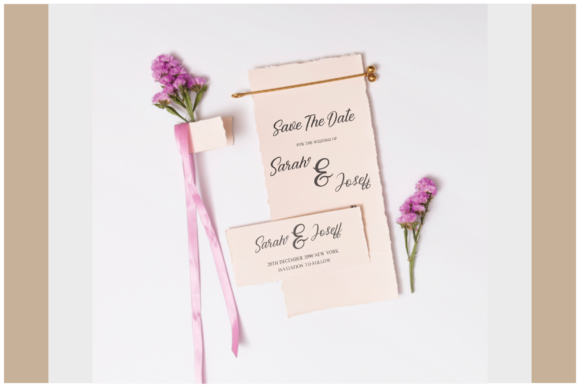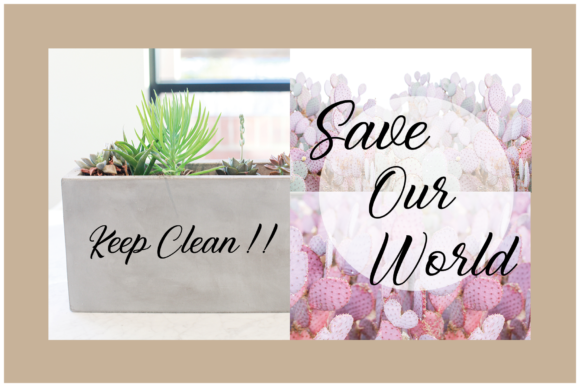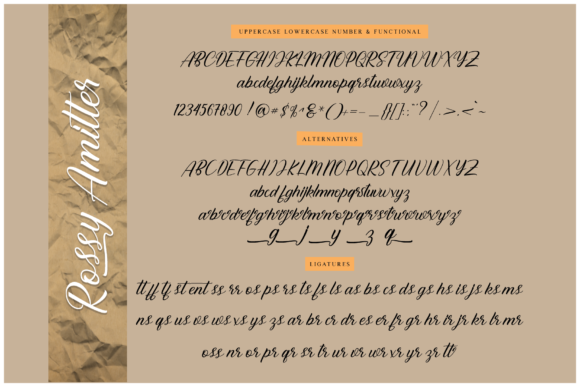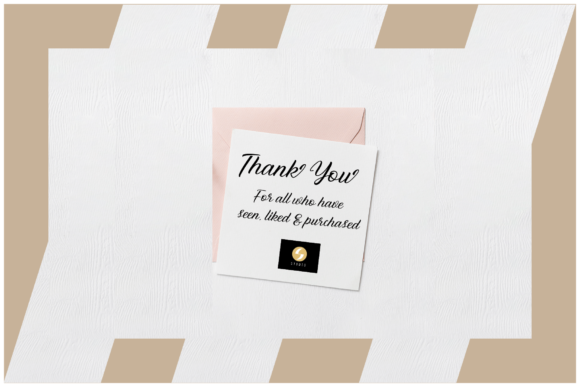
Introduction to Rossy Amitter Font Font
Fonts play a crucial role in design, and the Rossy Amitter Font font is a typeface that brings both character and versatility to any project. Whether you’re working on a branding project, a website, or a print design, the Rossy Amitter Font font offers a unique style that can elevate your work.
Rossy Amitter is a stunning handwritten font that updates classic calligraphy with a modern twist.
It will add an authentic feel to any design project .
Key Features of Rossy Amitter Font Font
Why Choose Rossy Amitter Font Font?
The Rossy Amitter Font font is more than just a typeface – it’s a design tool that helps you communicate your message with style and clarity. Its unique character set and versatile design make it suitable for a wide range of applications, from elegant invitations to bold headlines.
With its carefully crafted letterforms and balanced proportions, the Rossy Amitter Font font ensures readability and visual appeal across all mediums.
What makes Rossy Amitter Font font special?
The Rossy Amitter Font font stands out with its unique design, exceptional readability, and versatility across various design applications.